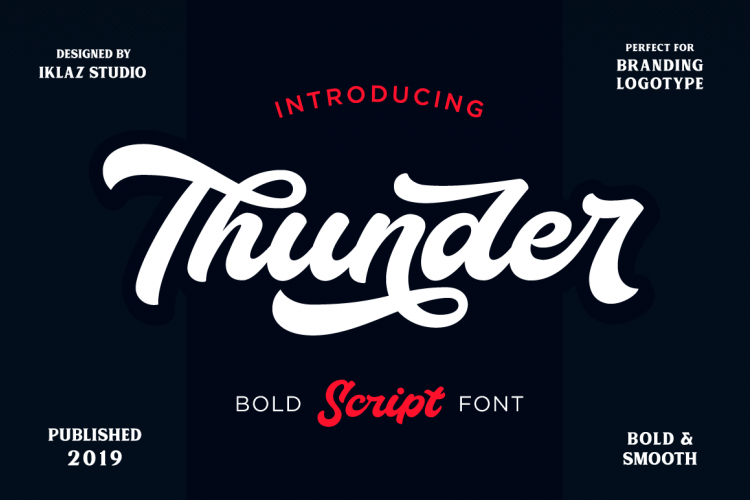
Thunder Bold Script Font
Modern classy fonts with strong styles and circle movement. It’s allowing you to create hand lettering is an instant. The idea is to help designers to combine and incorporate together of the fonts in your design creative work. Introducing Thunder script font. Thunder Font designed and shared by Iklaz Studio. Thunder Bold Script Font is a hand-lettered bold and smooth script.This font is awesome for your creative project such as Logotype, Branding, Packaging, Merchandise, label, and much more.
Thunder Script comes with standard character, numeral, punctuation and also alternates, standard and discretionary ligatures which let you customize your designs.